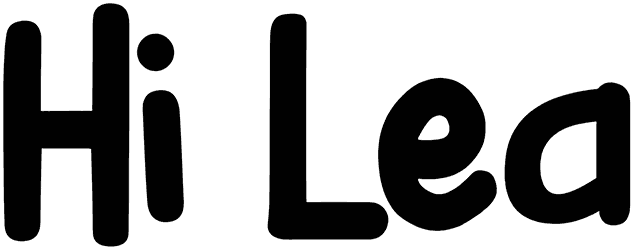
Cookies Font
If you are a designer of a children’s program and looking for a cute font for their program titles, you have come to the right place. Here we present the Cookies cartoon font that can be used in the book of stories, advertisements, cartoons, animations, and more.
This font has a comic, playful, and bold design that can attract the attention of kids to enjoy watching. Download it right now and make your creative writing projects fancier!